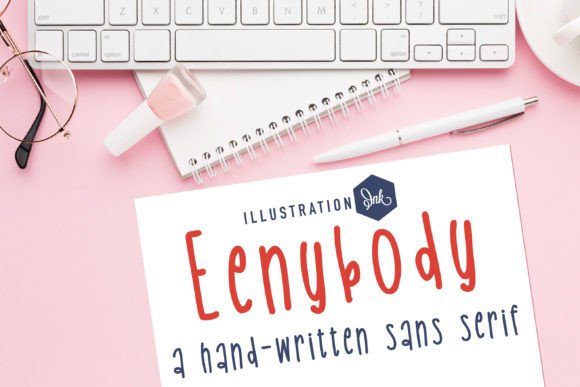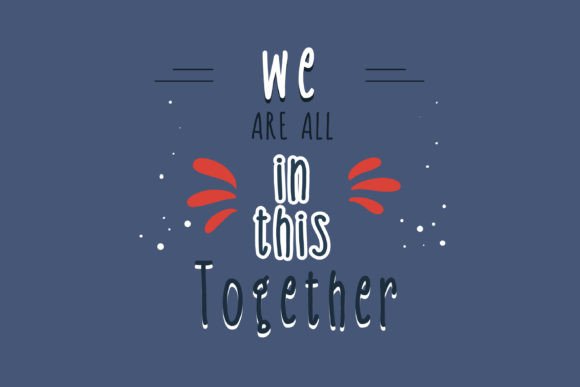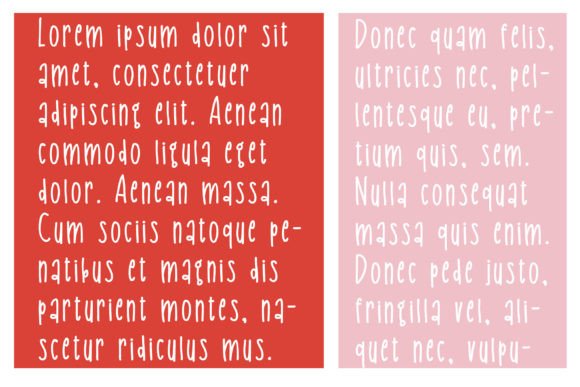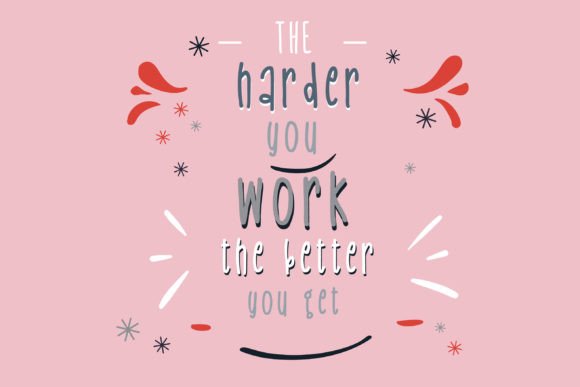
Eenybody Font
About the Eenybody Font
Presenting Eenybody Font, a unique and stylish typeface that will make your work stand out. This hand-crafted sans serif is a fun and whimsical font with youthful lettering with a little toggle throughout.
Eenybody Font’s playful nature makes it ideal for headlines, short text blocks on posters or packaging, and branding elements requiring a youthful, approachable feel. It works exceptionally well for children’s products, social media graphics, and projects emphasizing fun and creativity. However, its whimsicality makes it less suitable for body text or UI elements where readability is paramount. Long paragraphs set in Eenybody would be difficult to read.
Pairing Eenybody with a clean sans-serif like Lato for body copy creates a strong contrast and balanced visual hierarchy. For a more sophisticated feel, consider pairing it with a classic serif like Garamond or a slightly more modern serif like Playfair Display. These pairings allow Eenybody’s playful energy to shine without overwhelming the design.
The overall personality of Eenybody Font is best described as cheerful and approachable, making it a great choice for brands targeting a young, vibrant audience.
Eenybody Font Usage Examples
Eenybody Font Example